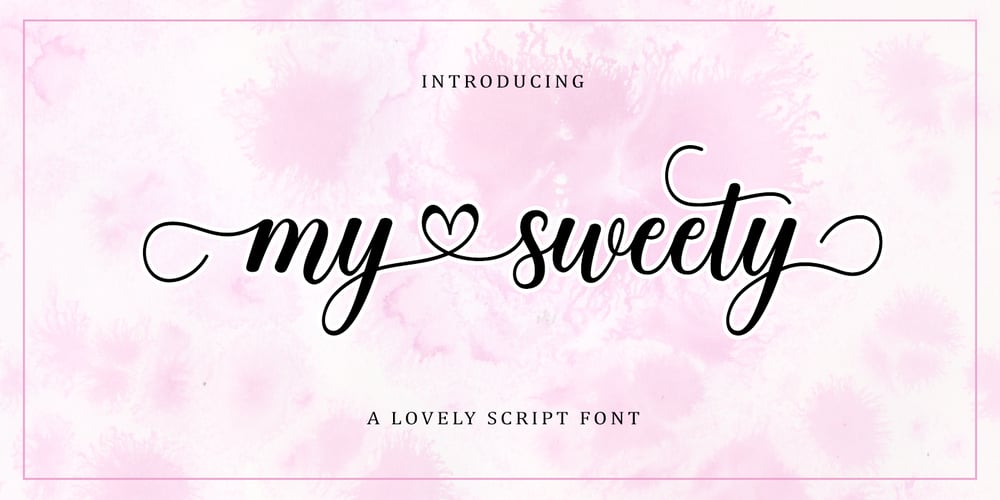
My Sweety Script Font Family was designed by Rizki Andika and published by Letterfreshstudio. My Sweety Script contains 1 styles and family package options. My Sweety Script – a new, fresh, funny, interesting, cute calligraphy font with a heart that can be connected. Great for greeting cards, branding materials, business cards, quotes, posters, and more!My Sweety Script – includes many alternative characters. Coded with Unicode PUA, which allows full access to all additional characters without having special design software. Mac users can use Font Book. Windows users can use the Character Map to view and copy one of the additional characters to paste into your favorite text editor. For people who have opentype-capable software: Alternatives can be accessed by turning on the “Alternative Style” and “Ligature” buttons on the Photoshop Character panel, or through any software with the glyph panel, e.g. Adobe Illustrator, Photoshop CC, Inkscape.